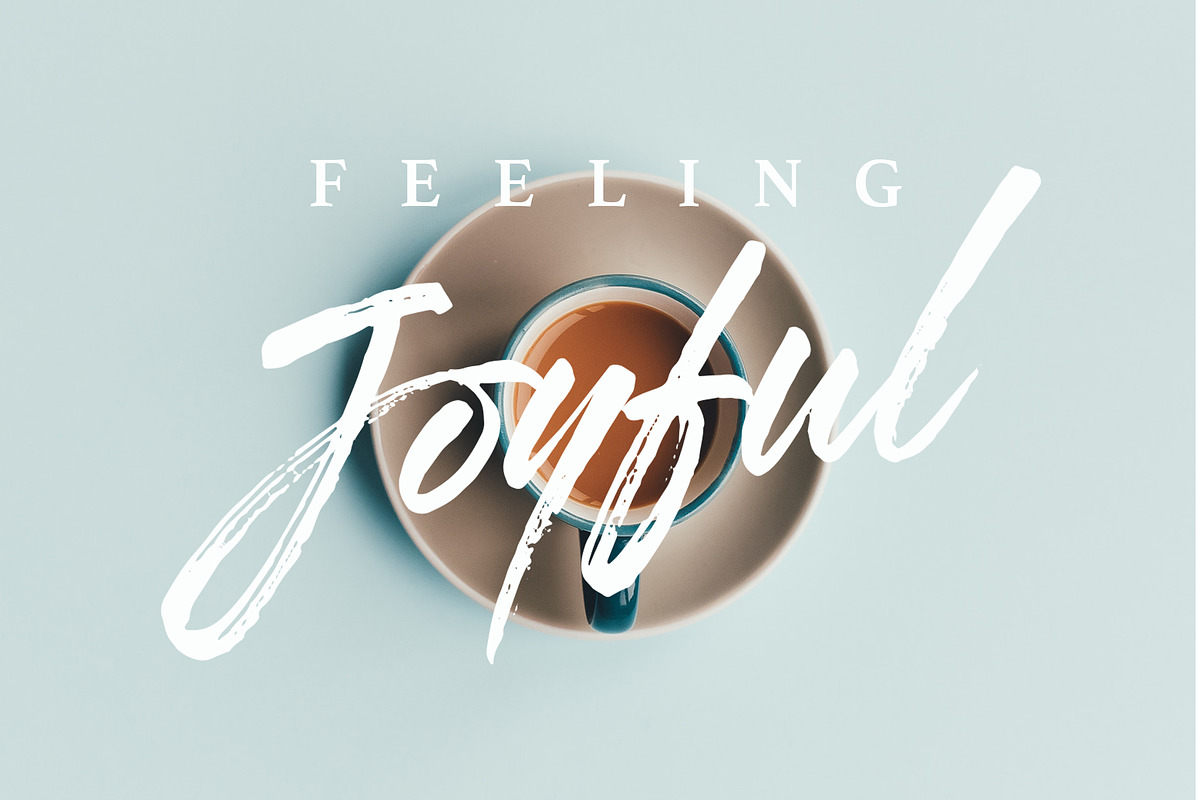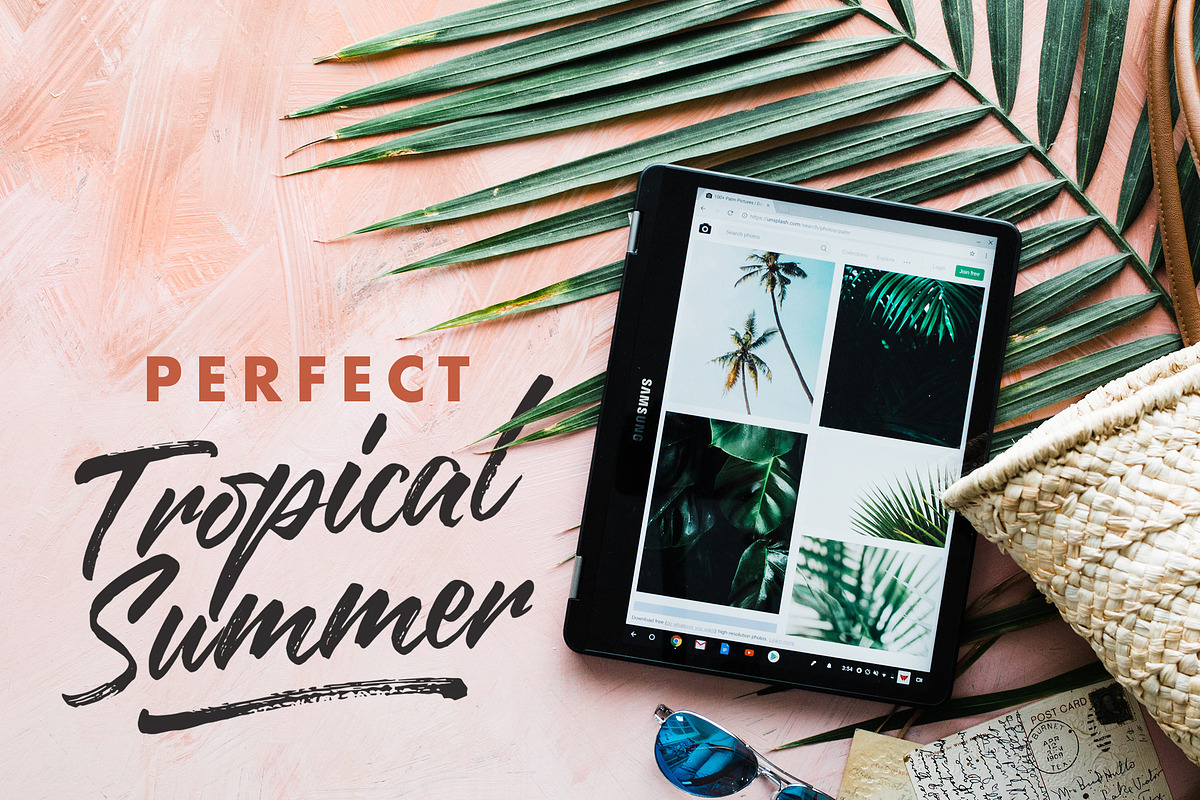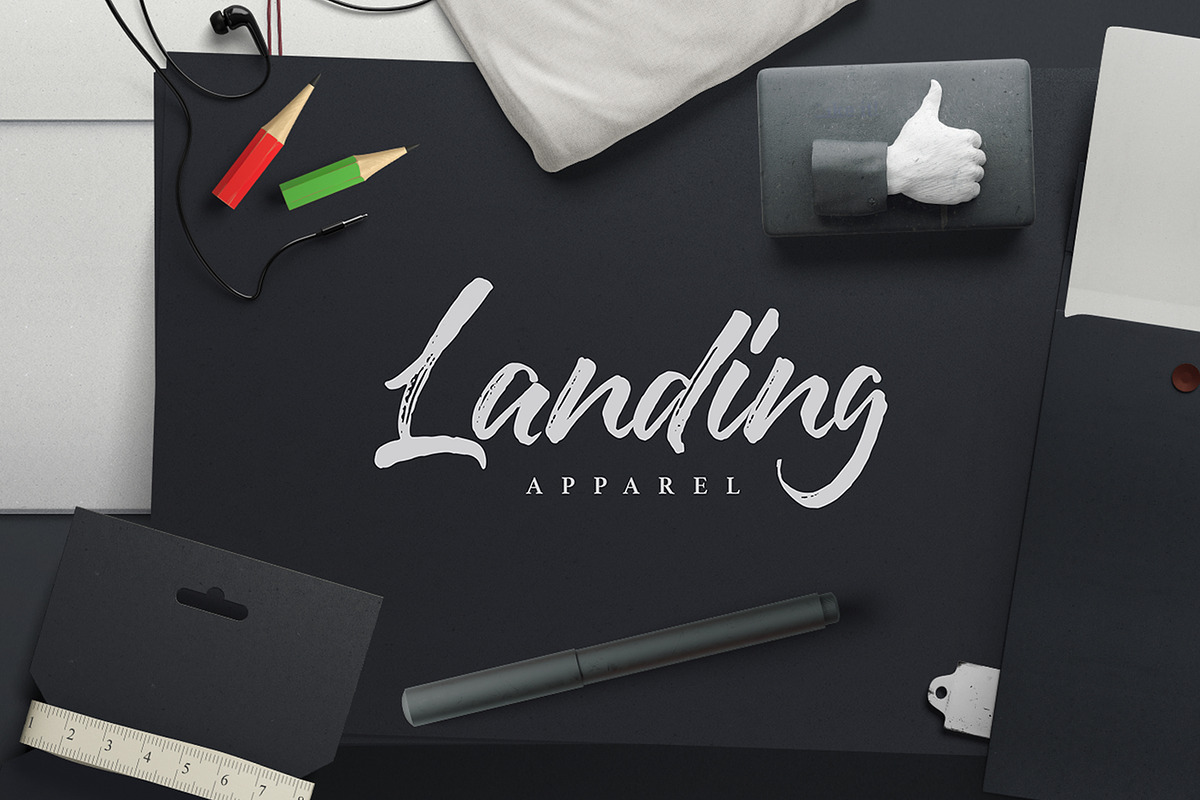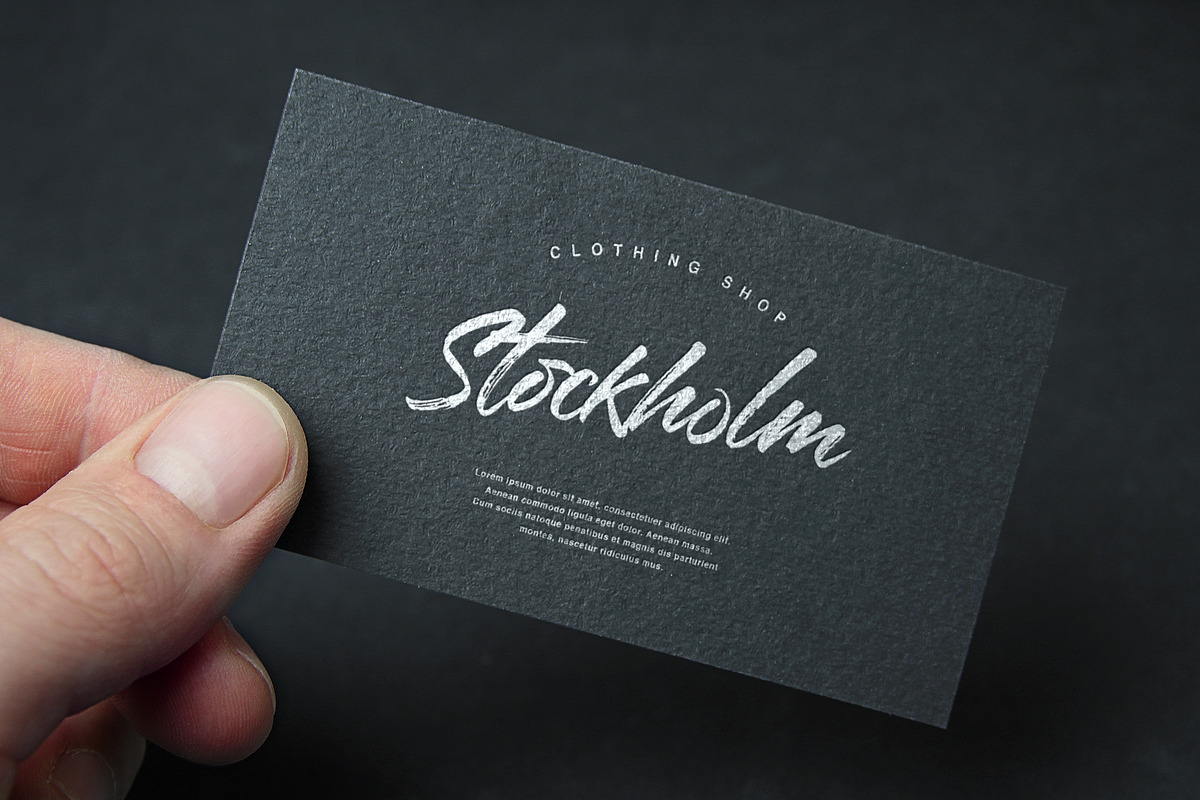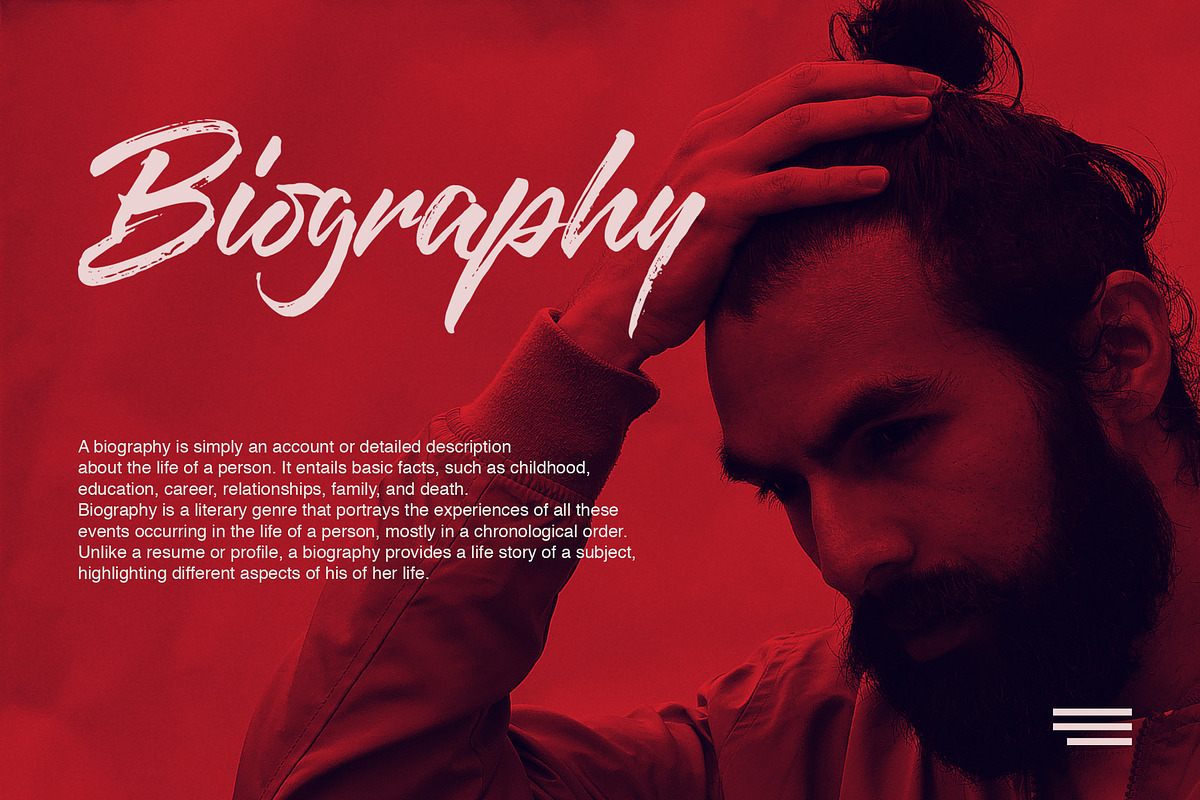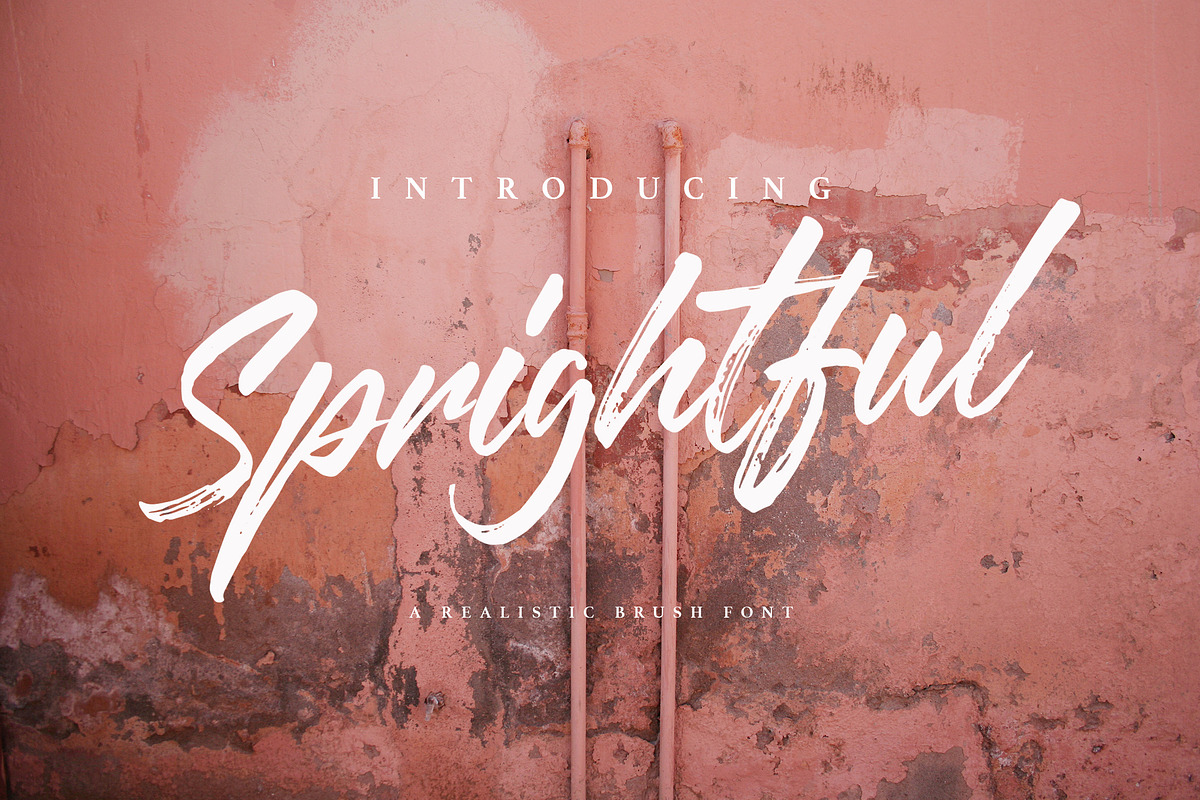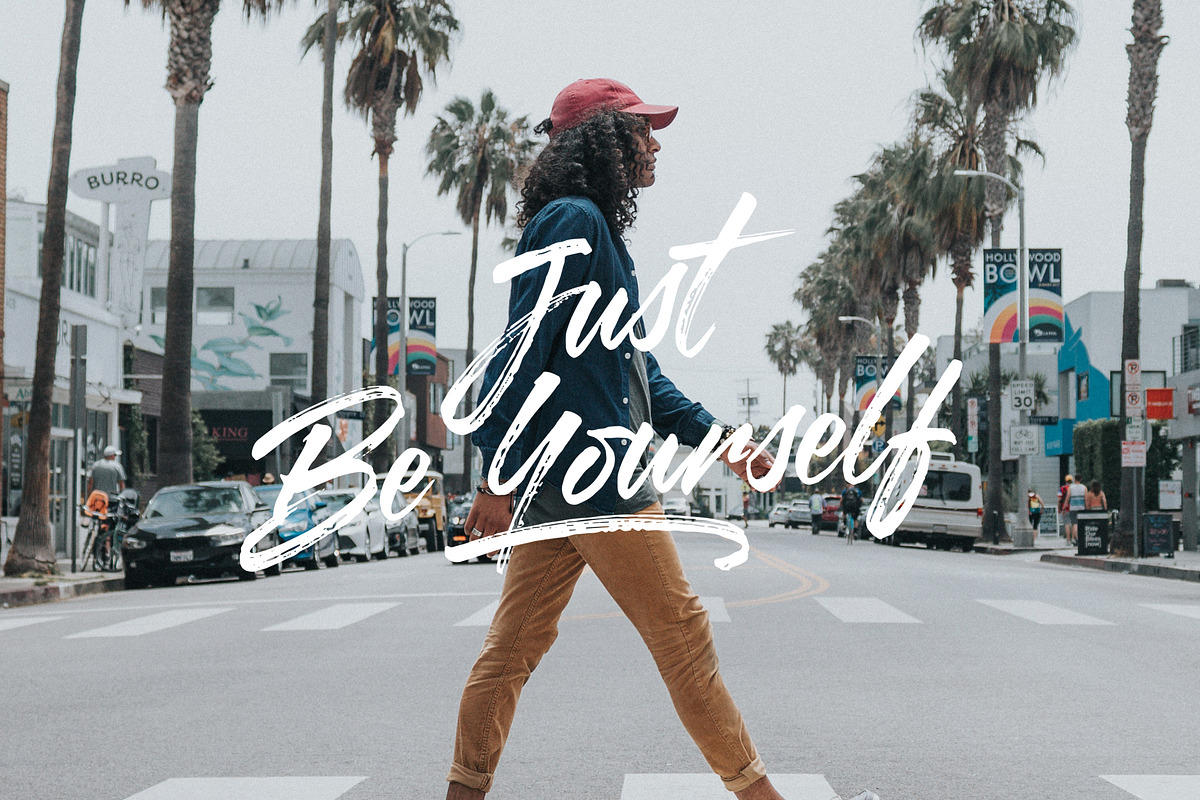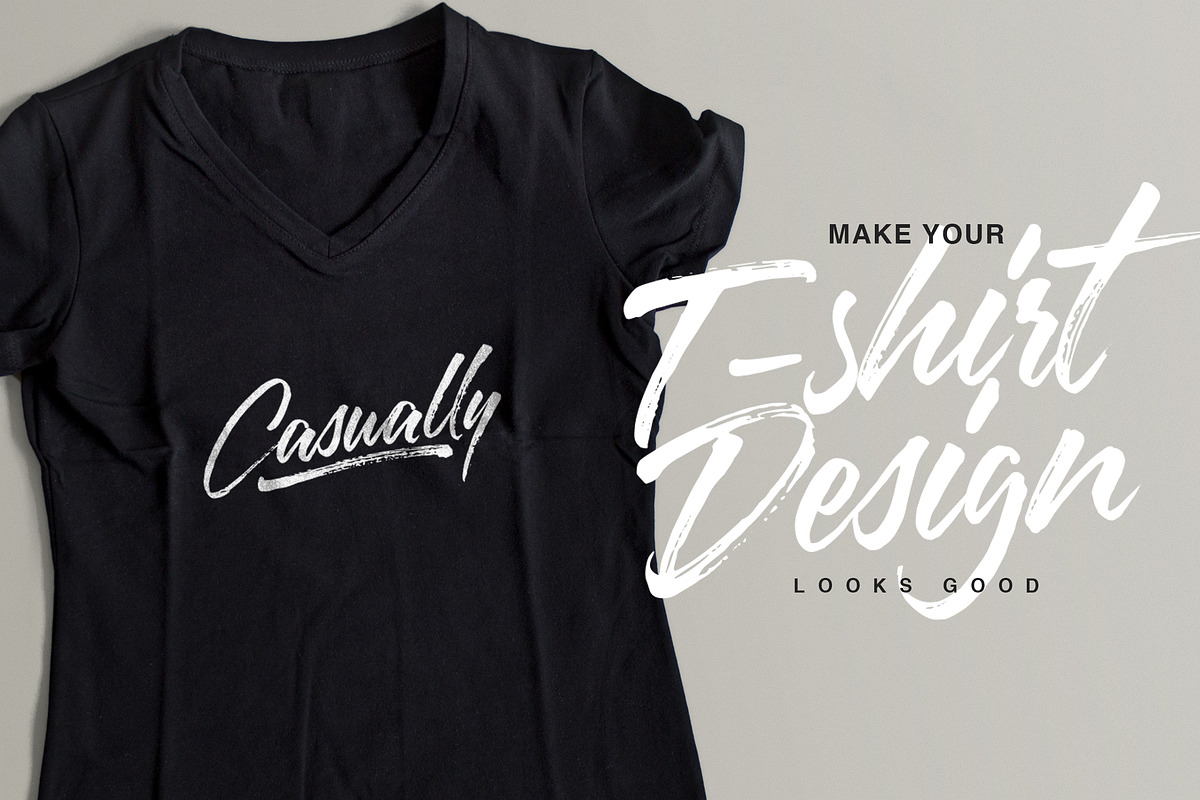
Sprightful Font
Sprightful Font is a casual dry brush font with a bunch of letter variations to make that perfect and unique design. Ideal for the header, logos, handwritten quotes, product packaging, poster, merchandise, social media & greeting cards.
Sprightful Font comes with upper and lowercase characters, a large set of punctuation glyphs, numerals, and a second version of Sprightful, with a completely new set of both lower and uppercase characters. If you wanted to avoid letters looking the same each time to recreate a custom-made style, or try a different word shape, simply switch to this font for an additional layout option.
Sprightful Font by Get Studio fits naturally into Branding, posters, packaging, typography.